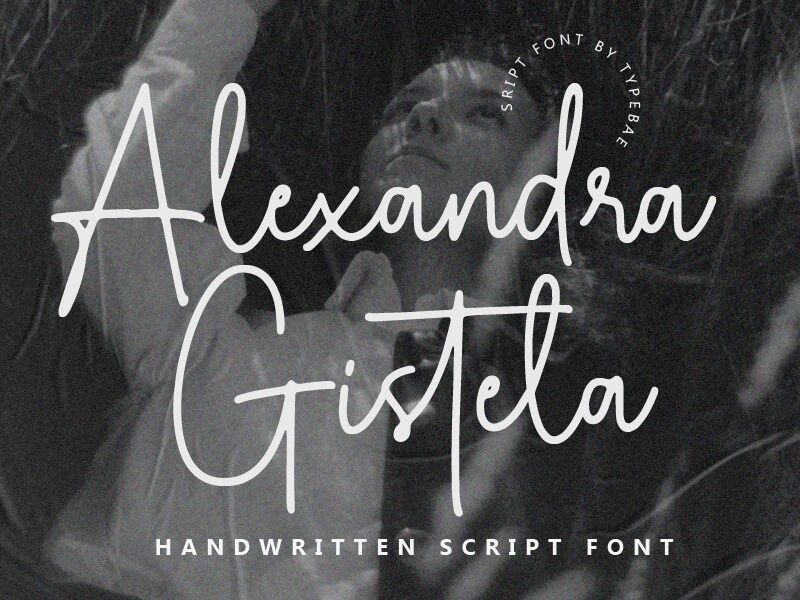
Alexandra Gistela
Alexandra Gistela font by Typebae Foundry holds casual elegance and delicate shapes that are easy to spot. The handwritten style has a light weight that gives it a modern yet approachable essence, while the organic design provides it with artistic flair. The font offers a personalized touch wherever you bring it, be it for artistic or business purposes.
The free handwritten font is excellent for quotes, logo designs, branding projects in general as well as digital platforms like apps and websites. Other uses exist for flyers, cards (business cards included), posters, banners, labels, magazine covers or interiors among many other options.